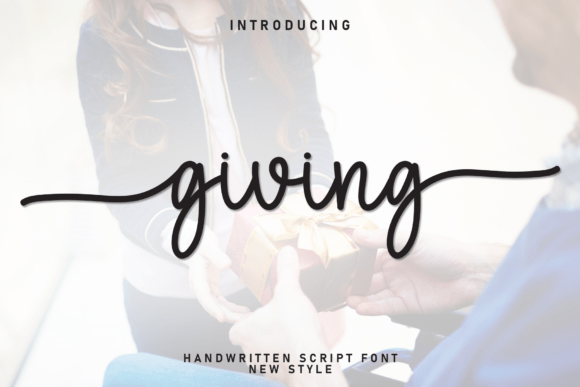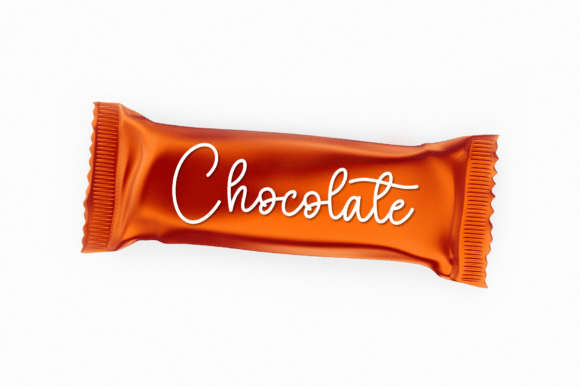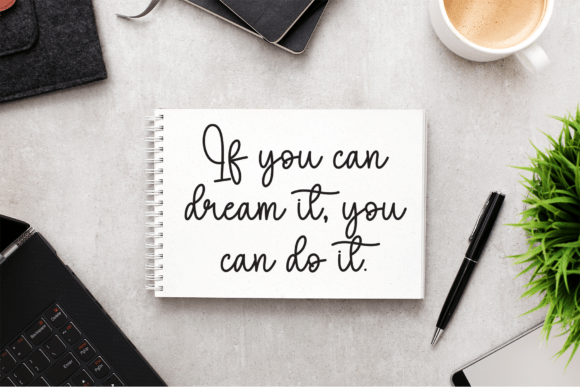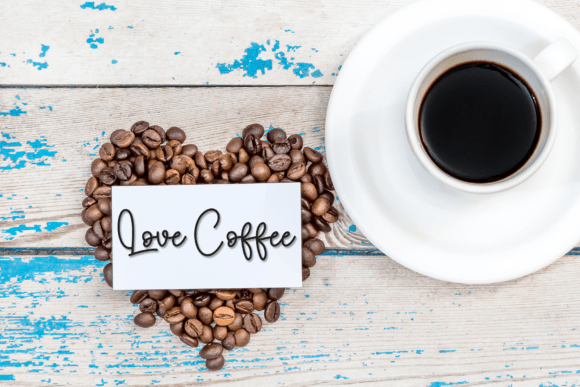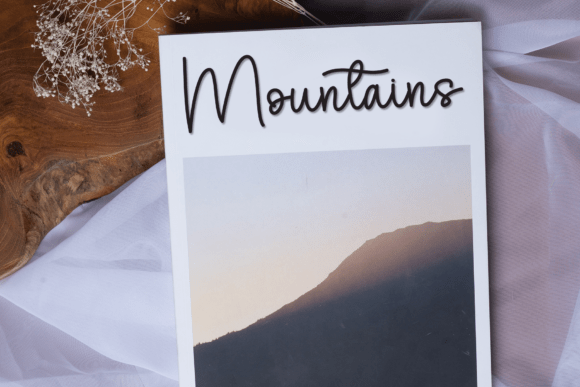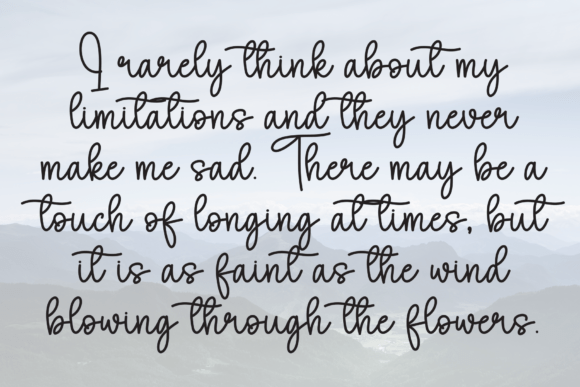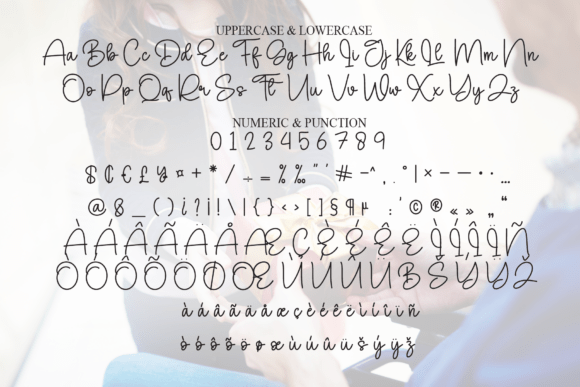
Discover the Art of Elegant Typography
As designers, we’ve all been there – staring at a blank canvas, searching for the perfect font to bring our vision to life. And then, it happens: a spark of inspiration strikes, and we’re off on a creative journey. For many, that spark is the Giving Font, a stunning script font that effortlessly conveys elegance and modern charm.
Designed to evoke the beauty of hand-drawn calligraphy, the Giving Font features fluid strokes, delicate curves, and perfectly balanced letterforms. Whether you’re crafting a logo, invitation, or social media graphic, this versatile font adds a touch of sophistication and personality to your design. With its natural flow and refined details, the Giving Font is a valuable asset for any designer looking to elevate their visual appeal.
Giving Font Key Features
- Unique Characteristics: Giving Font features a unique blend of modern and vintage elements, with intricate details and subtle texture
Designer Review: Giving Font
Overall, I think Giving Font is an interesting addition to the world of typography. It has its moments, but it also has some notable drawbacks.
- Giving Font has a unique, handwritten feel that could add some character to certain designs. Its flowing lines and rounded edges are reminiscent of traditional calligraphy.
- The font has a wide range of weights, from Light to Black, which gives designers a good amount of flexibility when it comes to choosing the right level of contrast for their project.
- The font supports a variety of languages, including Latin, Cyrillic, and Greek, which makes it a good option for international projects.
- Giving Font can feel a bit too ornate at times, which may make it difficult to read in certain contexts. Its overuse of flourishes and decorations can make the text feel cluttered.
- The font may not be the best choice for projects that require a lot of precision or technical accuracy, as its handwritten feel can give the impression of informality.
- While the font supports a wide range of languages, it’s worth noting that some of the more complex scripts may not render as smoothly as others.
Overall, I would say that Giving Font is a decent option for designers who are looking for a unique, handwritten font. However, it’s not without its limitations, and designers should be aware of these potential drawbacks before using it in their projects.
Getting the Most Out of “Giving Font”
Use the “Giving Font” to create eye-catching headlines and titles.
Use the “Giving Font” in combination with other design elements to create a unique and professional look.
Headlines and titles in marketing materials and social media posts.
Product names and logos in branding materials.
Quote overlays in photography and design projects.